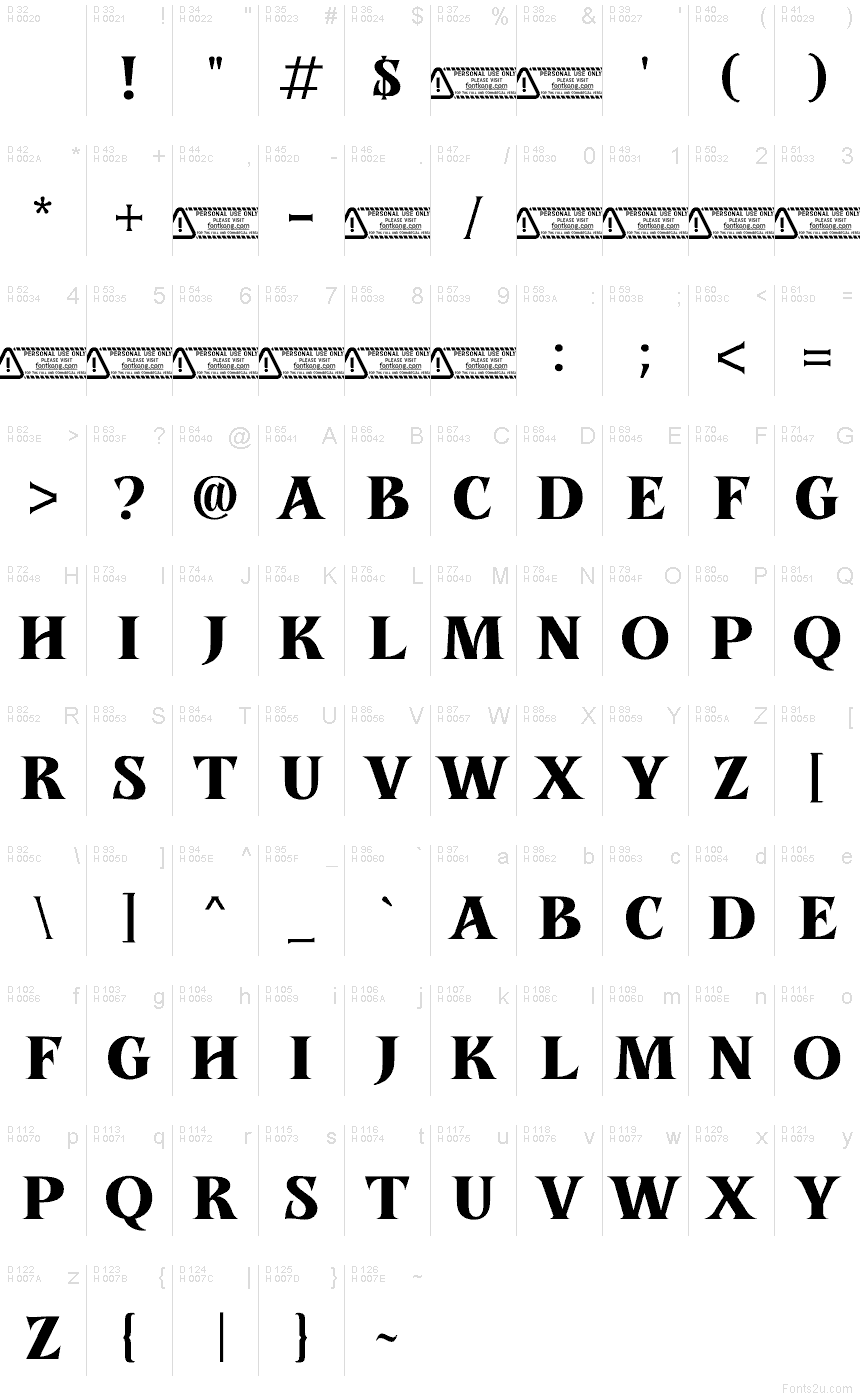
Aosta font by Kong Font is a free serif font whose beauty relies on elegance and classic aesthetics. Each glyph exudes sophistication, where the traditional design and high contrast influence every character part. This professional-looking font would easily fit in headlines and body copy of any project.
Aosta can be used mainly in print media which includes books, magazines, newspapers, brand identities, inside calendars. Other usage ideas include posters, flyers, advertisements involving coupons as well as promotional packs for gifts or food products.